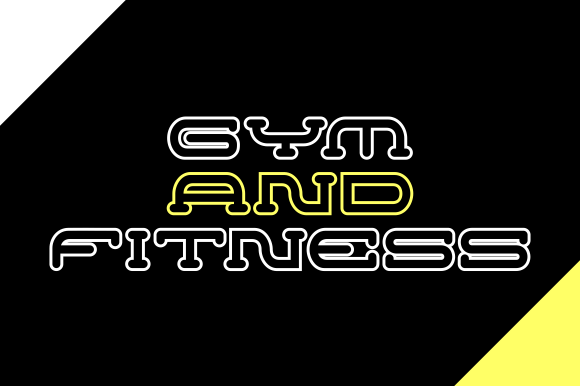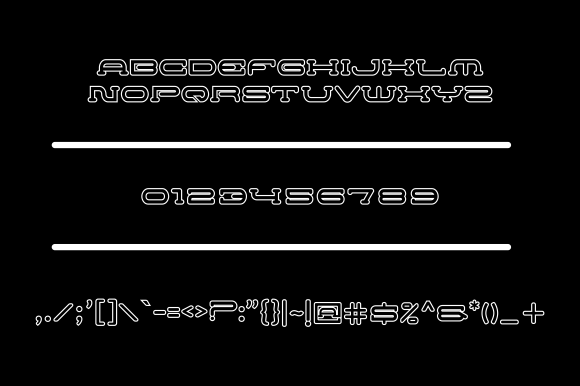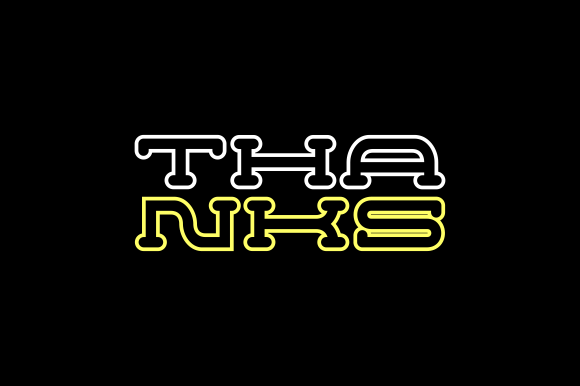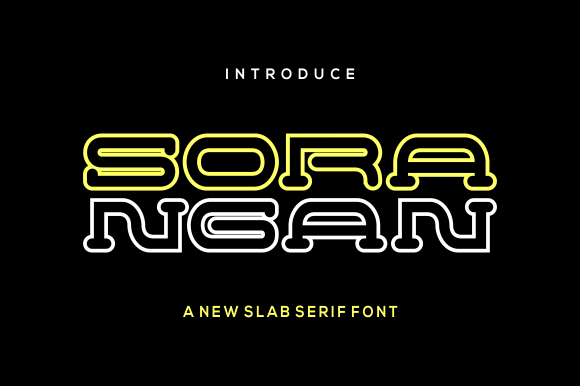
Sorangan Font
Sorangan: A Strong and Unique Display Font
Sorangan is a font with a strong personality, making it a perfect choice for display projects. It’s perfectly suited for a wide range of applications from branding and logos, to candy and food packages. Sorangan is a bright and fun typeface with a unique appearance.
Key Features of Sorangan
• Strong Personality: Offers a distinctive and memorable look for various applications.
• Display Font: Ideal for large-scale text and eye-catching designs.
• Versatile Application: Suitable for branding, logos, packaging, and more.
• Bright and Fun Aesthetic: Brings a lively and playful feel to designs.
Ideal Uses for Sorangan
Sorangan’s unique characteristics make it particularly well-suited for:
When incorporating Sorangan into your designs, consider these tips:
• Use for headlines or short phrases to showcase its strong personality.
• Experiment with different sizes to highlight the font’s unique features.
• Utilize its bright and fun appearance to create designs that capture attention and evoke a playful mood.
Sorangan is an excellent choice for designers looking to add a strong and unique display font to their typographic toolkit. Its ability to bring personality and fun to various design projects makes it stand out in the world of typography. Whether you’re working on branding materials, creating logos, or developing packaging designs for food and candy products, Sorangan offers the perfect blend of distinctiveness and versatility.
Furthermore, Sorangan’s unique design allows it to shine in various contexts where a bold and playful look is desired. From advertising campaigns to social media content, this font can elevate your projects with its eye-catching style. Its strong yet fun appearance works particularly well in designs that aim to make a memorable impact and convey a sense of excitement and creativity.
In conclusion, Sorangan is a font that truly captures the essence of strong personality in display typography. Its versatility across different applications showcases its adaptability to various creative needs. For those looking to add a touch of distinctive charm to their work, Sorangan can enhance themed creations with its unique style. It’s the perfect choice for designers seeking to make a bold, fun impact across a wide range of creative projects, especially in branding and packaging design.